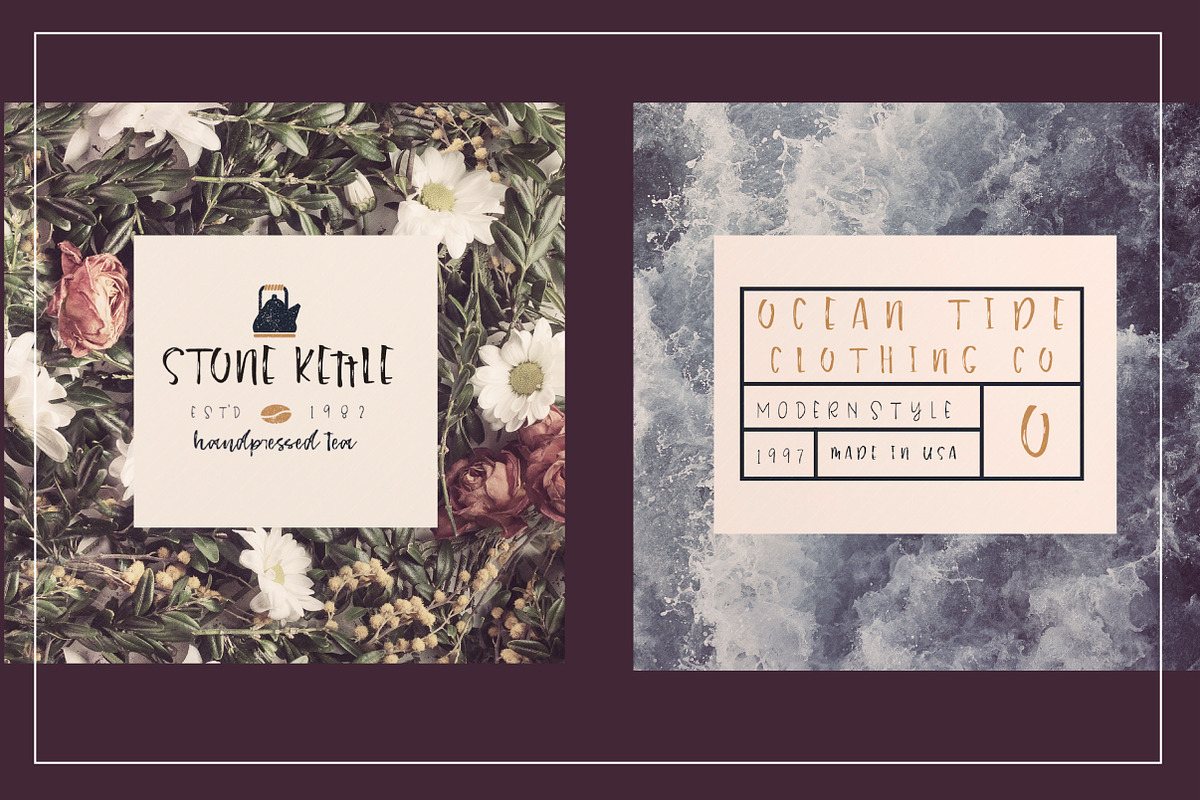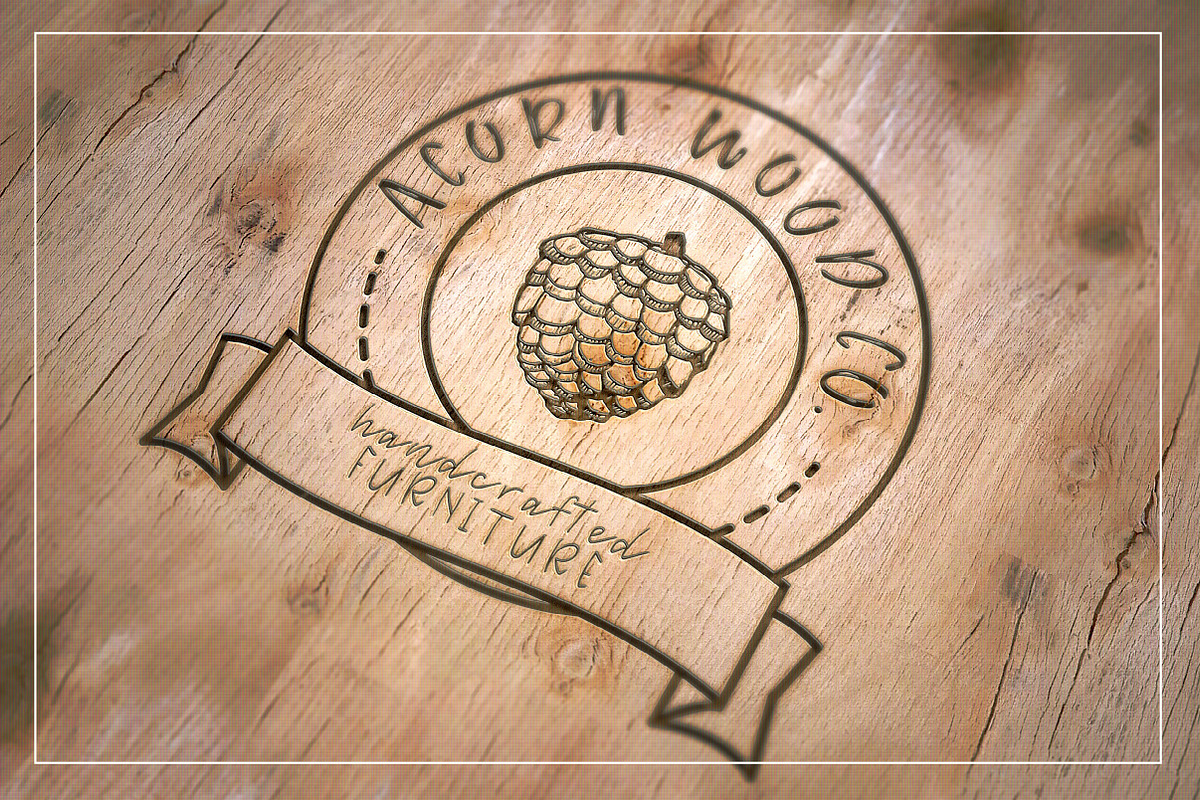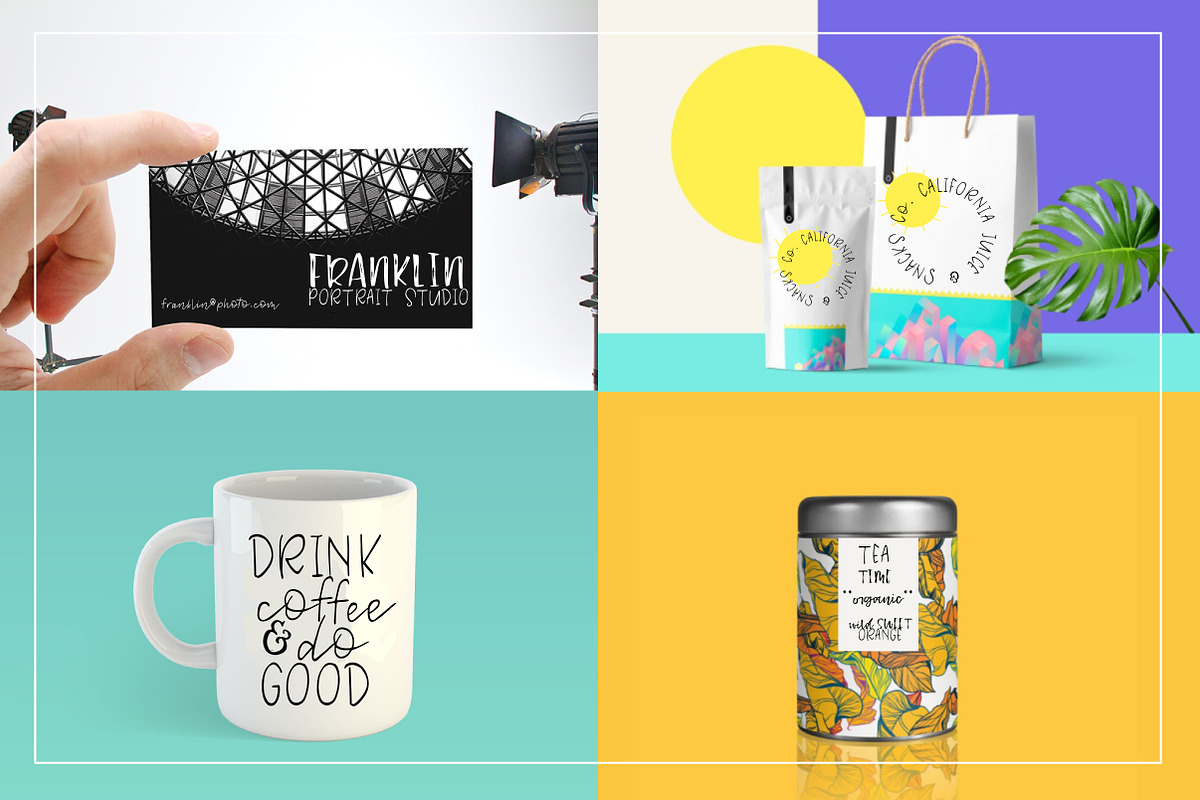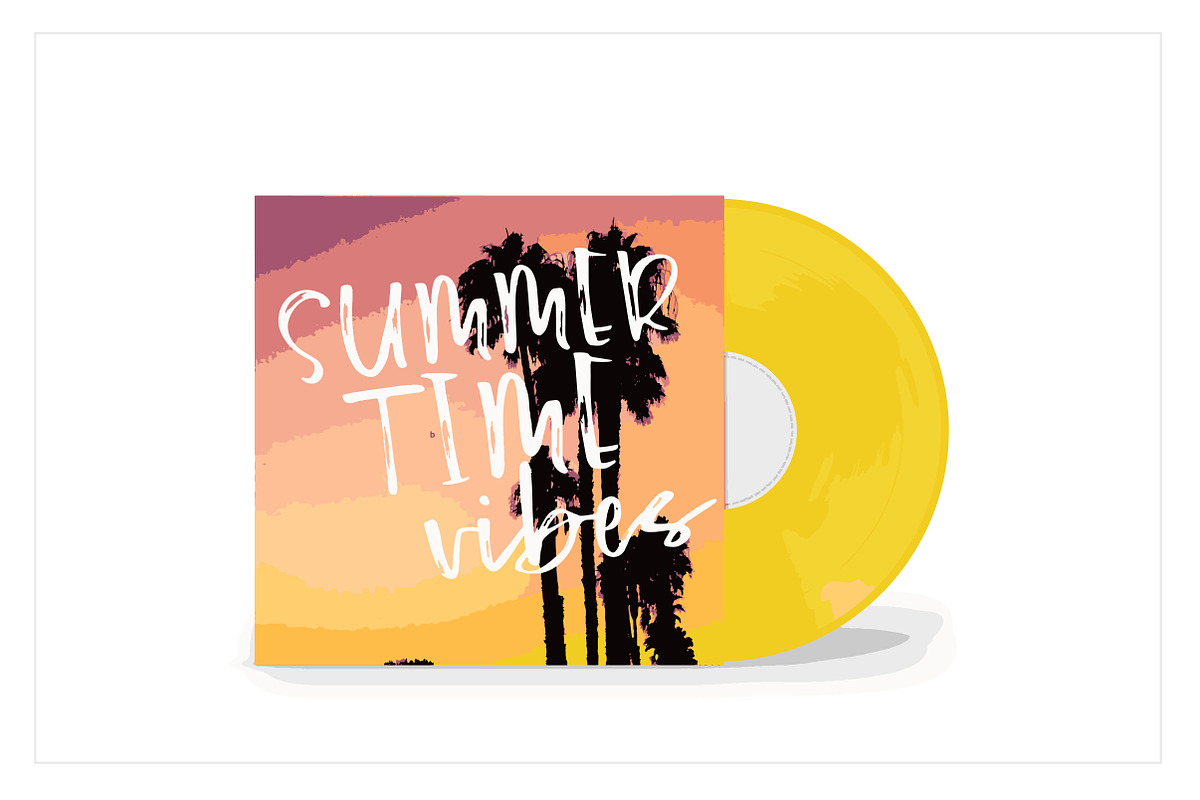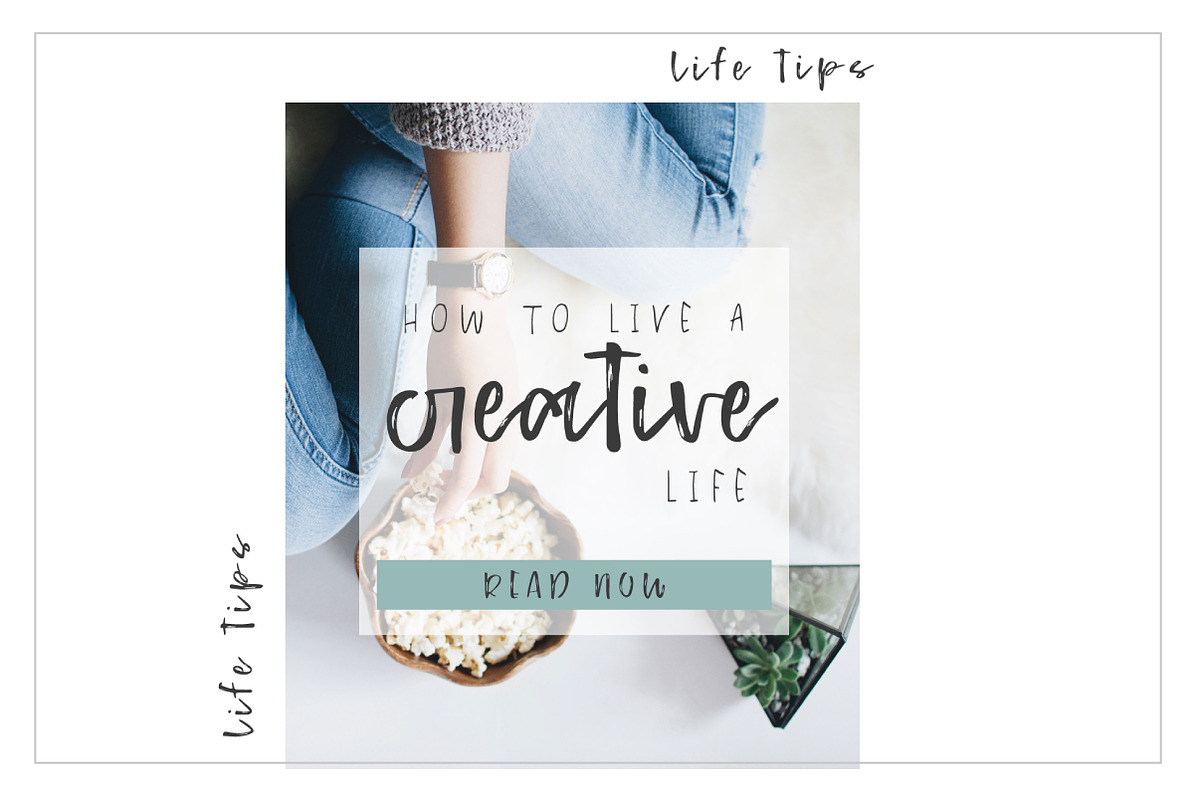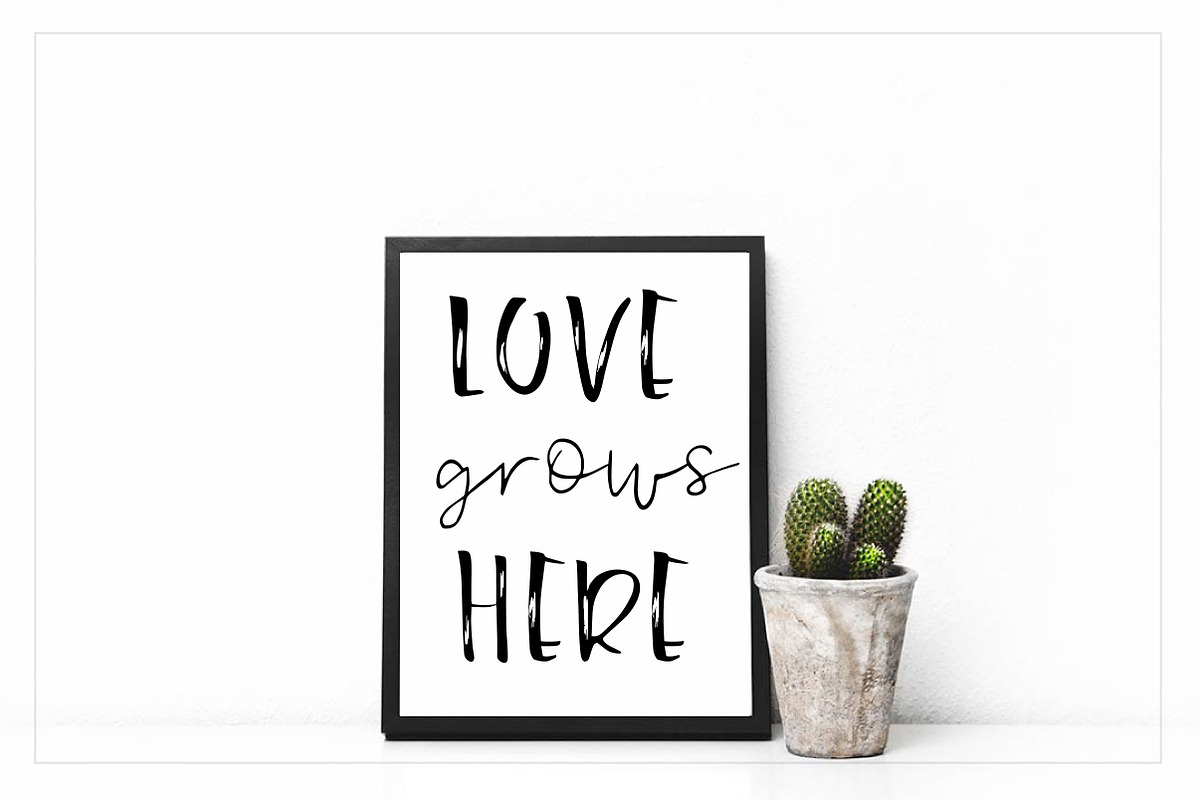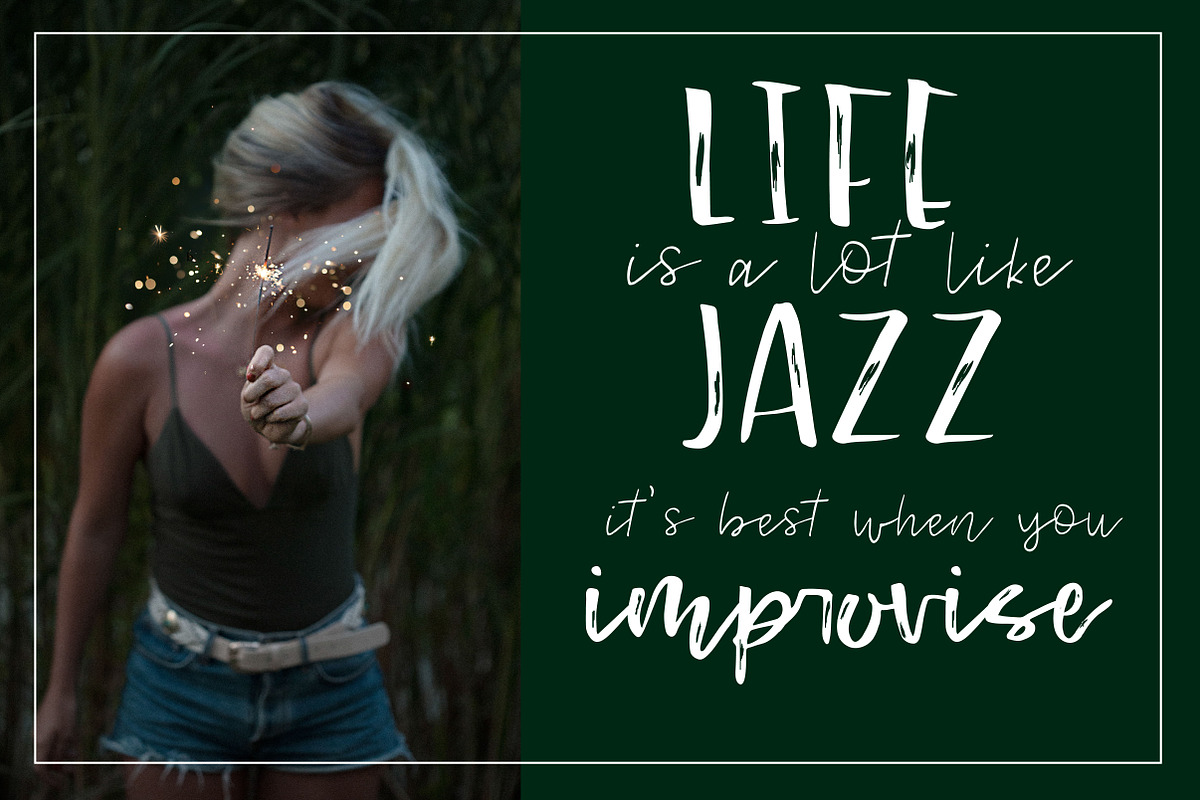
Melody & Lyrics - Font Duo
Say hello to Melody & Lyrics - a handmade font duo made with love. A brushy, sans serif script font duo with BONUS symbols font.
Melody & Lyrics includes standard characters as well as lowercase stylistic alternates and ligatures to create a different mood with your lettering.
Perfect for company logos, invitations, product packaging, and anything else you want to give a handlettered feel to your design.
Also included: bonus symbols font with hand drawn elements (vectors) to use with your lettering